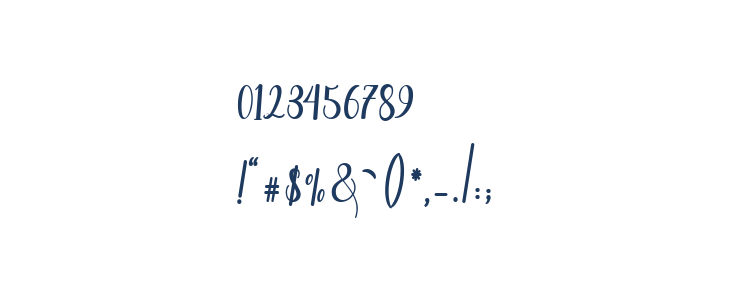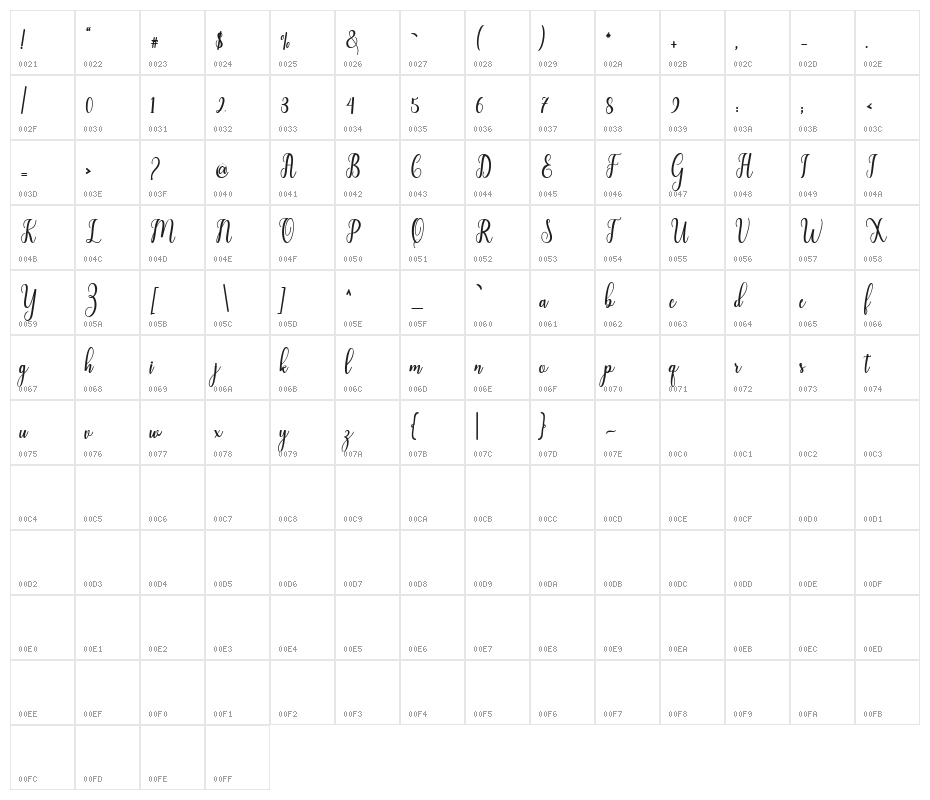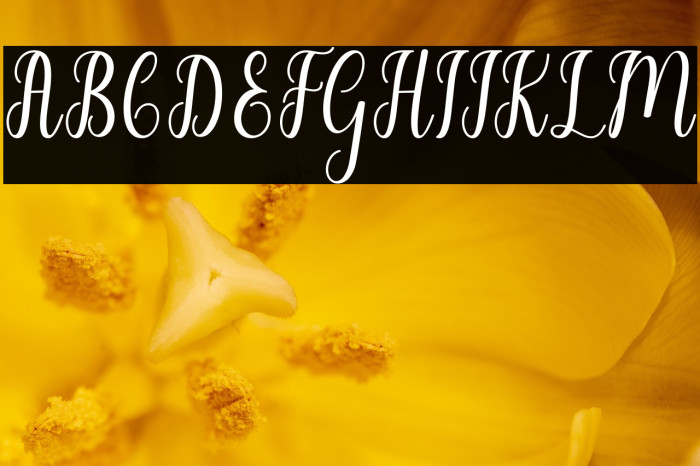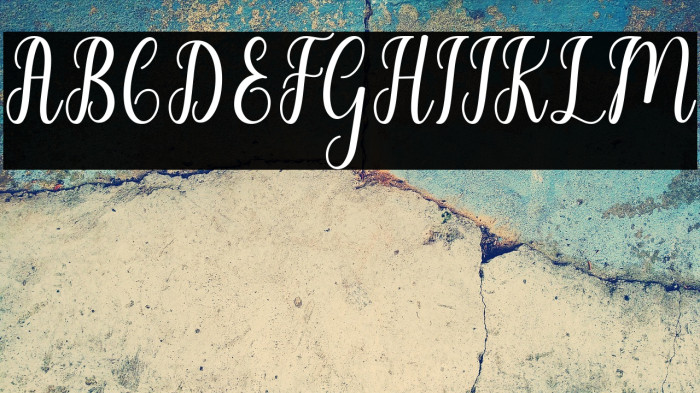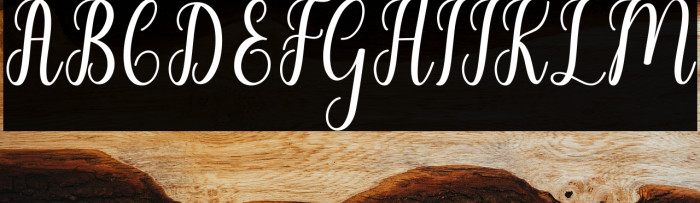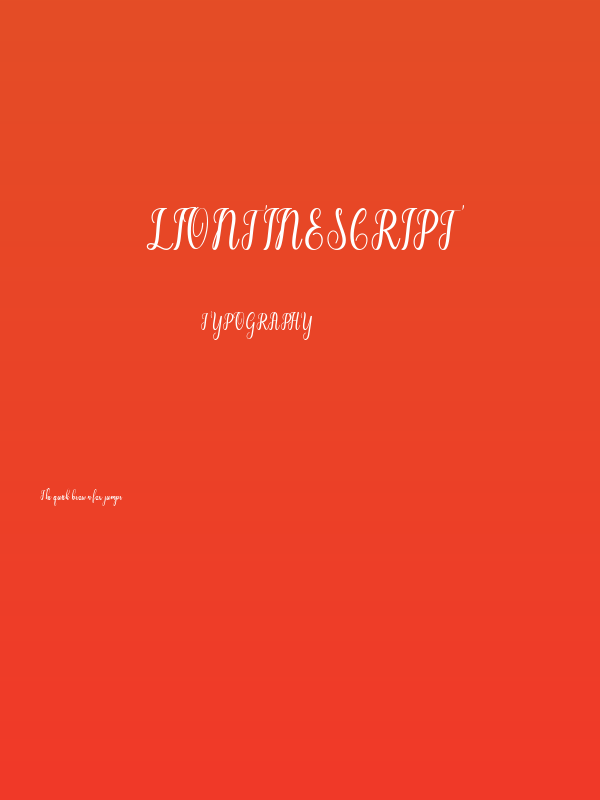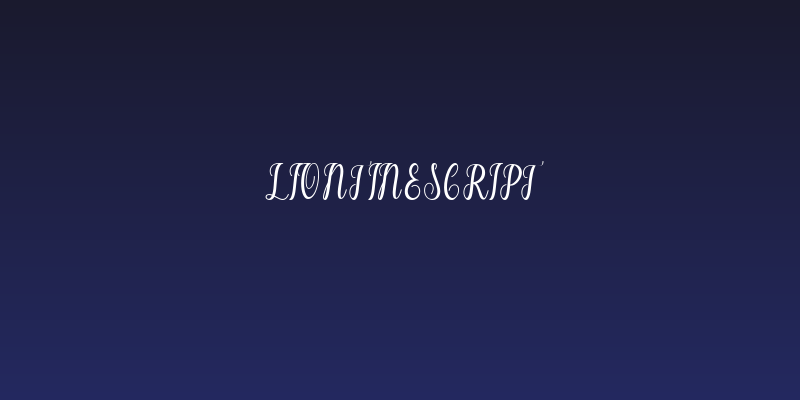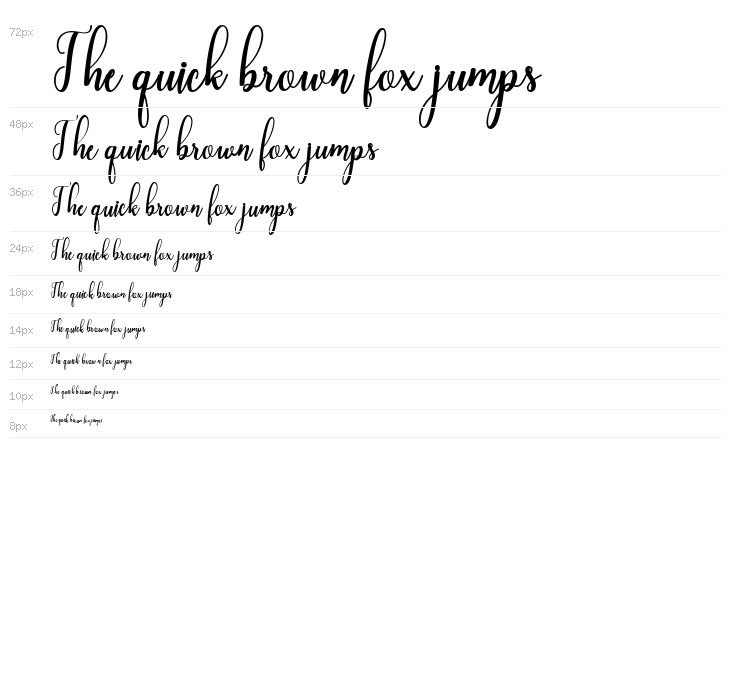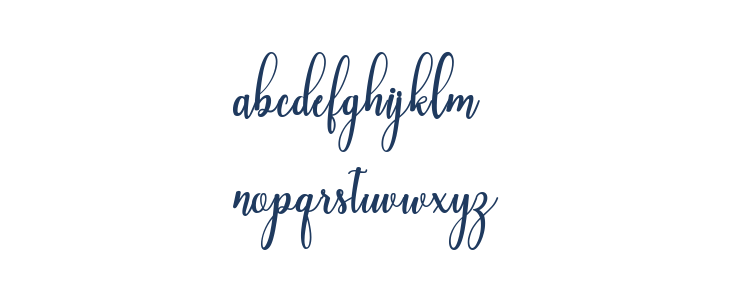
LiontineScript Font
LiontineScript Description
This elegant script font features flowing, cursive letterforms with a sophisticated flair. The uppercase letters are tall and graceful, with sweeping curves and delicate loops that add a touch of refinement. The lowercase letters maintain a consistent style, with smooth connections and a fluid motion that enhances readability. The numerals are stylishly integrated, matching the overall aesthetic with their curvaceous design. Special characters are thoughtfully crafted, maintaining the font's cohesive look. This font exudes a sense of elegance and sophistication, making it ideal for formal invitations, branding, and decorative purposes.
| Overall Style | Elegant |
| Use Case | Invitations, Branding, Decorative |
| Proposed Projects | Ideal for wedding invitations, luxury branding, greeting cards, and decorative signage. |